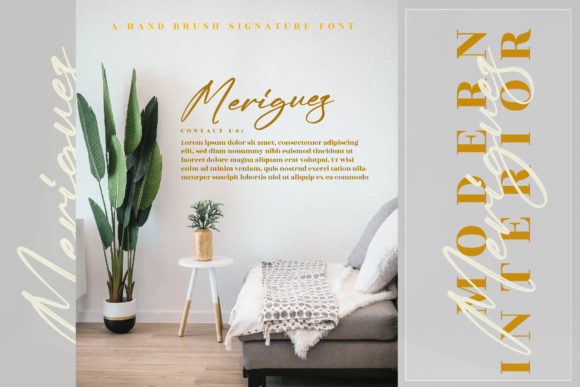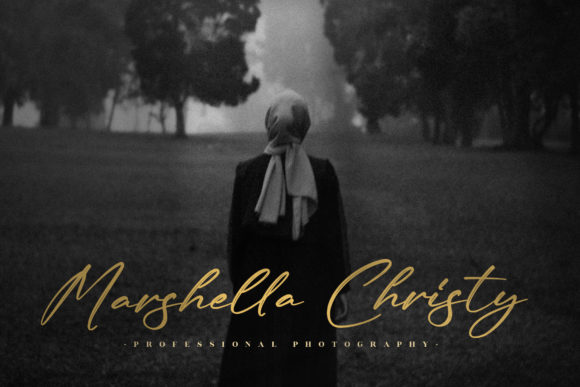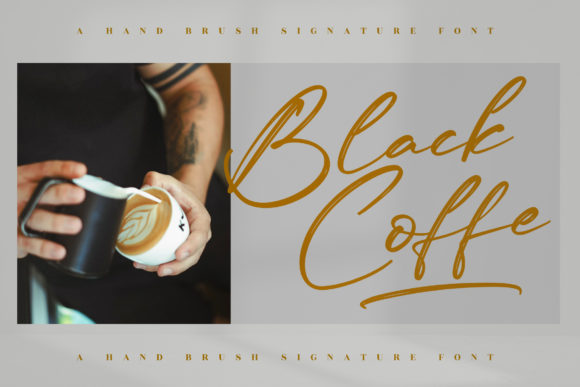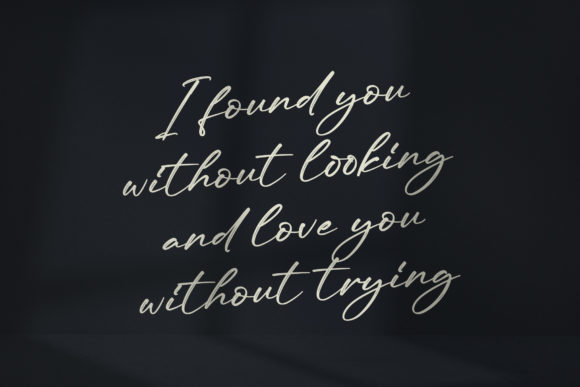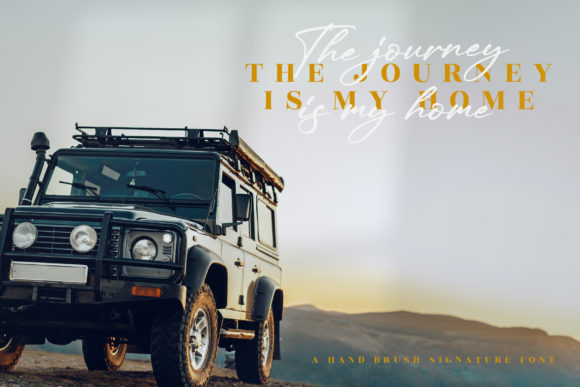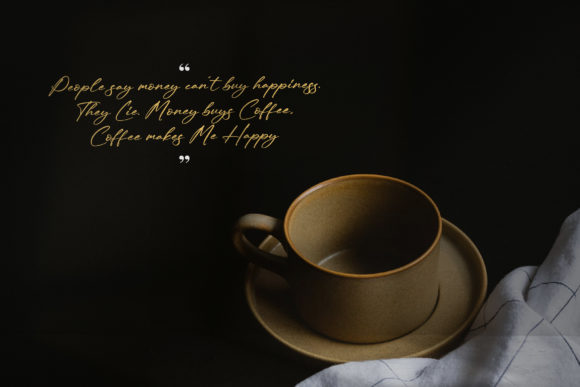
Introduction to Rodriguez Xavier Font
Have you ever stood in front of a beautiful old building, taking in the intricate details of the hand-painted signs and murals that adorn its walls? The Rodriguez Xavier Font is a design resource that captures the essence of those timeless, handwritten signs, bringing a touch of elegance and sophistication to your creative projects.
Whether you’re working on a high-end branding campaign or an urban design project, this versatile font is the perfect addition to your toolkit. With its PUA encoding, you’ll have access to a wide range of glyphs and ligatures that will elevate your designs to the next level. Imagine being able to add a touch of hand-crafted charm to your designs, without sacrificing the high quality and precision that your clients demand.
Key Features of Rodriguez Xavier Font
- High-quality, professional font suitable for creative projects and designs
- Unique characteristics include elegant, modern script and sophisticated letterforms, ideal for creative and artistic designs
Honest Review: Rodriguez Xavier Font
As a designer, I’m always on the lookout for high-quality fonts to elevate my creative projects. Rodriguez Xavier Font is a beautiful addition to any design resource library.
- ✨ The font’s elegant script style makes it perfect for wedding invitations, event promotions, and other special occasions.
- ⚠️ The font may not be suitable for small text sizes, as the letters can become difficult to read.
- ⚠️ Some users may find the font’s complexity overwhelming, making it challenging to use for beginners.
Overall, I’m impressed with Rodriguez Xavier Font. Its unique style and high-quality design make it a valuable addition to any design resource library. While it may have some limitations, the benefits far outweigh the drawbacks. I highly recommend giving it a try for your next creative project!
Rodriguez Xavier Font is ideal for use in creative projects, such as:
- Business cards and marketing materials.
- Wedding invitations and event materials.
- Branding and logo design.